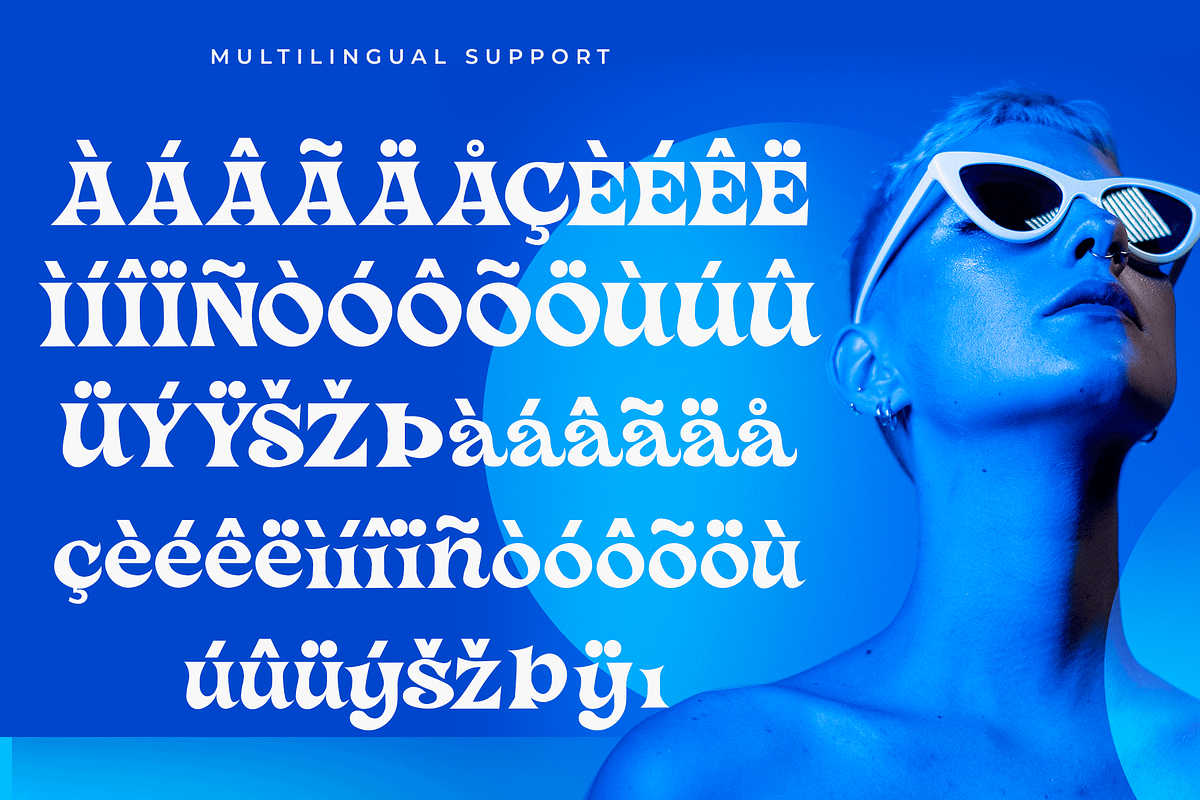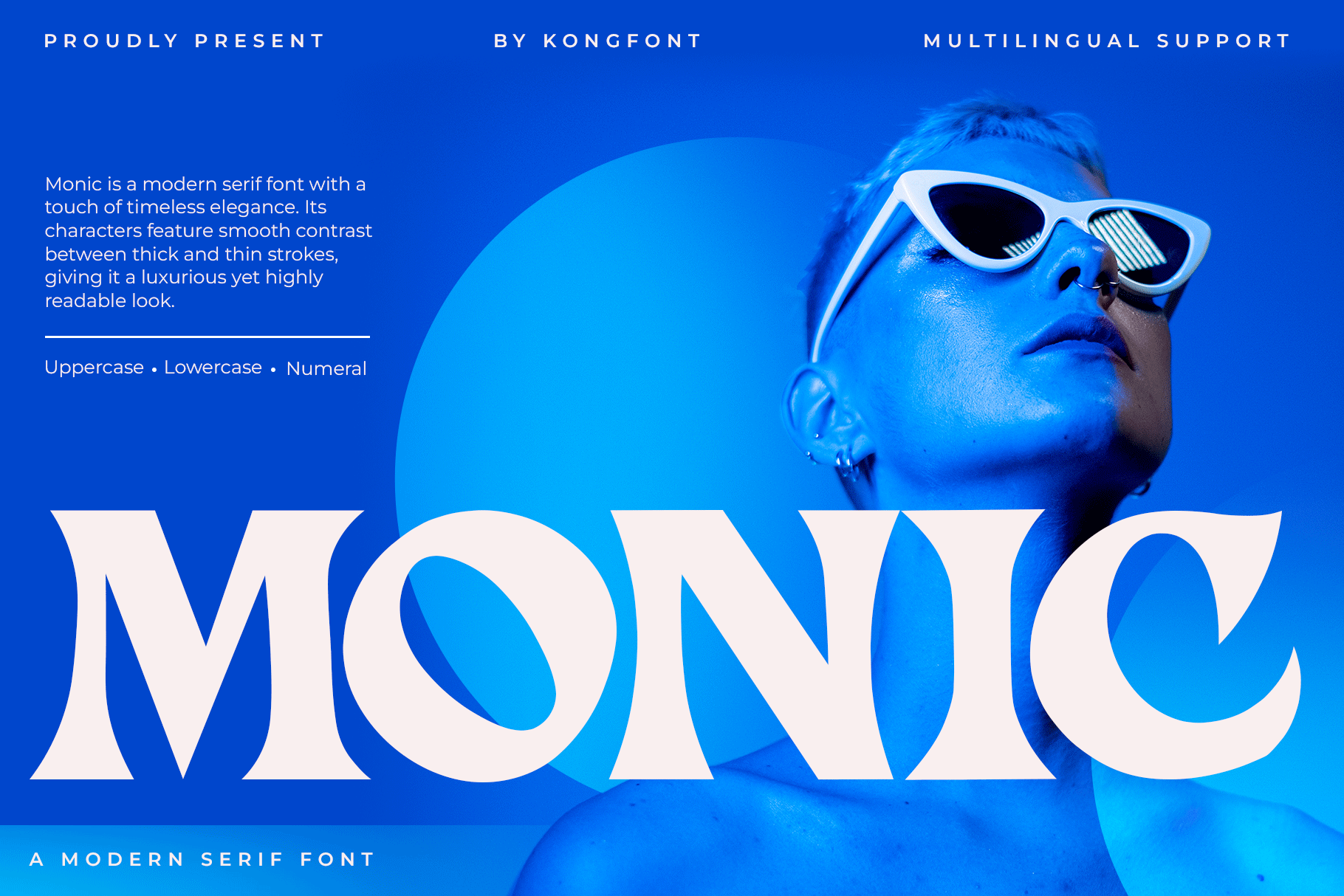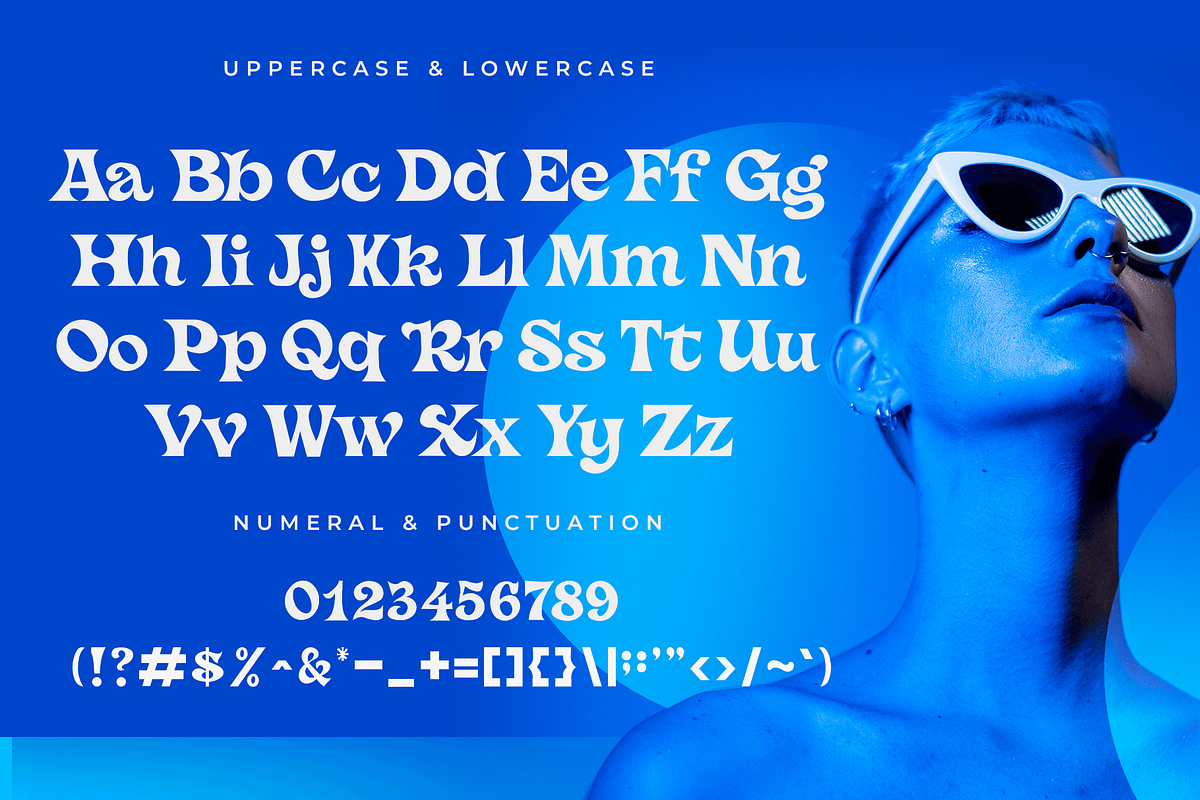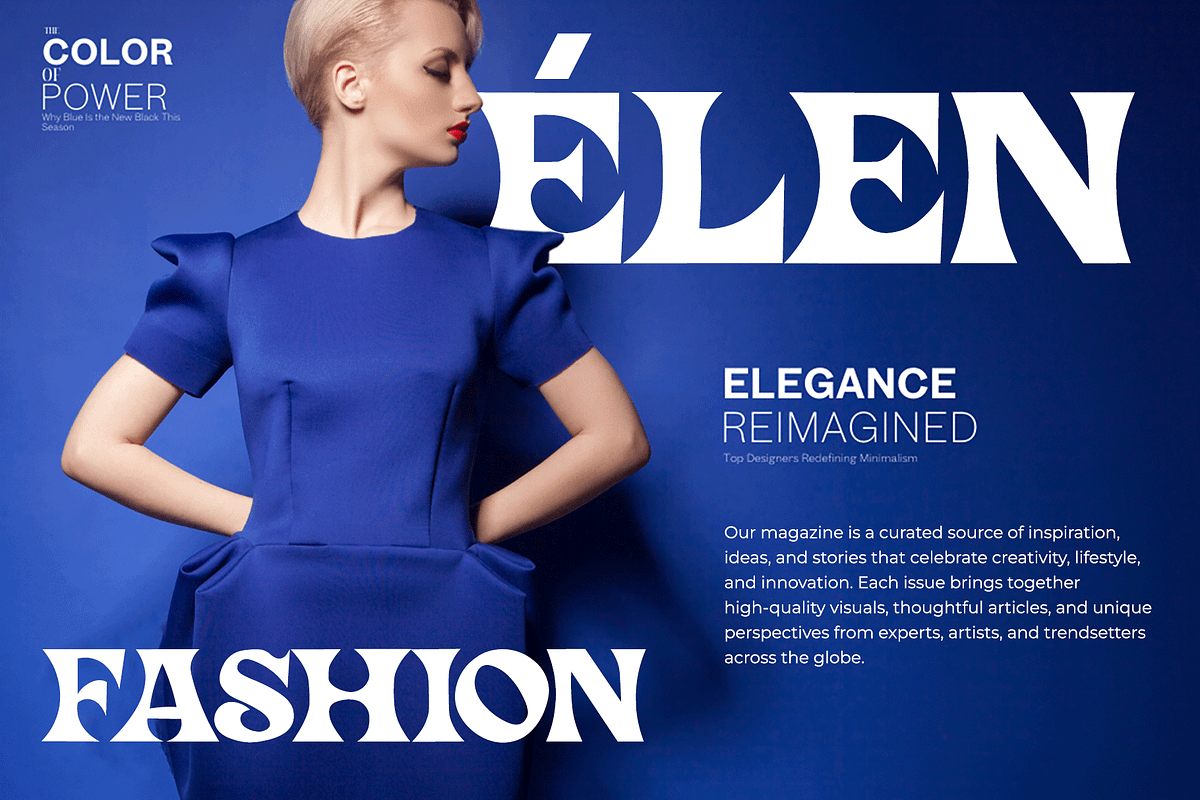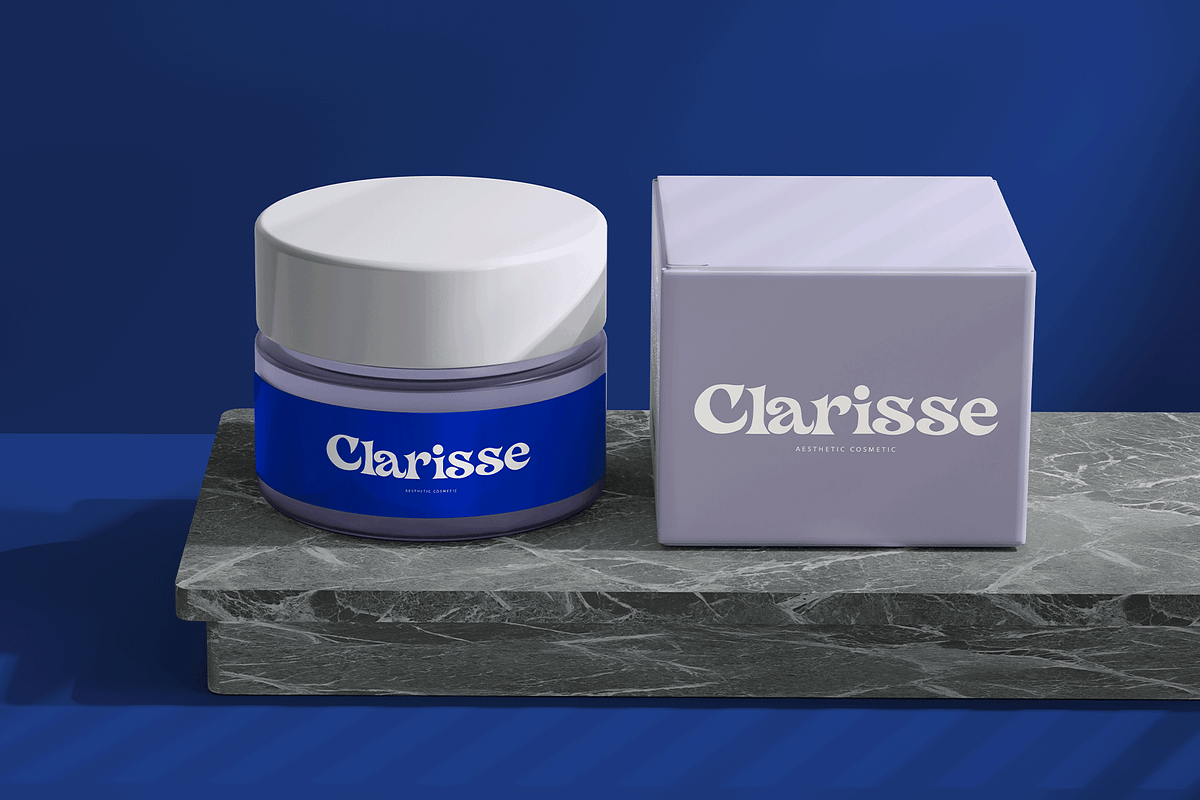
Monic – Modern Serif Font
Discover Monic, a modern serif font crafted to bring sophistication and clarity to your creative projects. With its sharp serifs, balanced proportions, and contemporary details, Monic offers a perfect blend of classic elegance and modern refinement.
This typeface is highly versatile, making it suitable for editorial layouts, branding, packaging, professional presentations, and stylish logos. Its clean letterforms ensure excellent readability while maintaining a distinctive charm that elevates any design.
Monic comes with uppercase, lowercase, numerals, punctuation, and multilingual support, providing everything you need to create impactful typography. Whether you’re designing a high-end brand identity, a fashion editorial, or a sleek invitation, Monic is the ideal choice to convey elegance and professionalism.